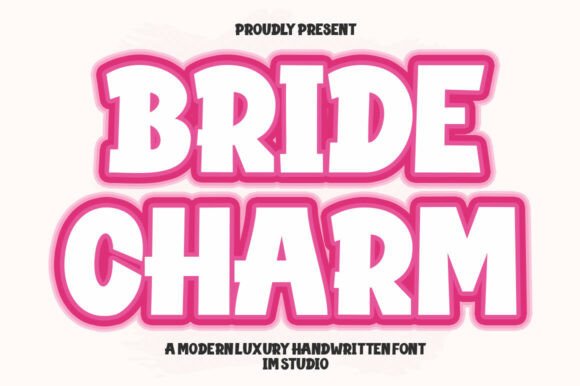
Bride Charm Font: Elevate Your Designs with a Playful Retro Twist
Are you looking for a font that can add a bold, bubbly, and nostalgic vibe to your designs? Look no further than Bride Charm, a playful retro groovy font inspired by the iconic letterforms of the 1970s. This eye-catching font is perfect for designers who love bold, cheerful, and aesthetic retro styles, and want to create standout artwork with a vintage flair.
The Inspiration Behind Bride Charm
Bride Charm is a font that pays homage to the fun and carefree spirit of the 1970s. The font’s design is inspired by the thick curves, smooth edges, and fun swashes that were characteristic of letterforms from this era. The result is a font that exudes a sense of nostalgia and playfulness, making it perfect for designs that require a bold and cheerful touch.
Key Features of Bride Charm
Bride Charm is more than just a font – it’s a design tool that offers a range of features to help you create stunning artwork. Some of the key features of Bride Charm include:
- Uppercase and Lowercase Letters: The font includes both uppercase and lowercase letters, giving you the flexibility to create designs that require a mix of both.
- Numbers and Punctuation: Bride Charm also includes numbers and punctuation marks, making it a comprehensive font that can be used for a wide range of design projects.
- Unique Stylistic Alternates: One of the standout features of Bride Charm is its unique stylistic alternates. These alternates allow you to add a touch of personality to your designs, and create artwork that stands out from the crowd.
- Fun Swashes: The font also includes fun swashes that can be used to add a touch of whimsy to your designs. These swashes are perfect for creating eye-catching quotes, posters, and other designs that require a bold and playful touch.
Use Cases for Bride Charm
Bride Charm is a versatile font that can be used for a wide range of design projects. Some of the most popular use cases for Bride Charm include:
- Eye-Catching Quotes: The font’s bold and playful design makes it perfect for creating eye-catching quotes that grab attention.
- T-Shirts and Apparel: Bride Charm is also well-suited for designing t-shirts and other apparel. The font’s thick curves and smooth edges make it easy to read, even from a distance.
- Stickers and Labels: The font’s fun swashes and stylistic alternates make it perfect for creating stickers and labels that stand out.
- Posters and Flyers: Bride Charm can also be used to create bold and eye-catching posters and flyers. The font’s playful design makes it perfect for promoting events, products, and services.
- Branding and Packaging: Finally, Bride Charm can be used to create branding and packaging that stands out. The font’s unique design makes it perfect for creating a memorable brand identity.
Why Choose Bride Charm?
So why choose Bride Charm over other fonts? Here are just a few reasons why Bride Charm is a top choice for designers:
- Unique Design: Bride Charm has a unique design that sets it apart from other fonts. The font’s thick curves, smooth edges, and fun swashes make it perfect for creating standout artwork.
- Versatility: The font is versatile and can be used for a wide range of design projects. Whether you’re creating eye-catching quotes, t-shirts, or posters, Bride Charm is a great choice.
- Easy to Read: Despite its bold and playful design, Bride Charm is easy to read. The font’s thick curves and smooth edges make it perfect for creating designs that are both eye-catching and legible.
| Author | IM Studio |
In conclusion, Bride Charm is a playful retro groovy font that’s perfect for designers who love bold, cheerful, and aesthetic retro styles. With its thick curves, smooth edges, and fun swashes, Bride Charm is a versatile font that can be used for a wide range of design projects. Whether you’re creating eye-catching quotes, t-shirts, or posters, Bride Charm is a great choice. So why wait? Download Bride Charm today and bring a bold, bubbly, and nostalgic vibe to your designs!